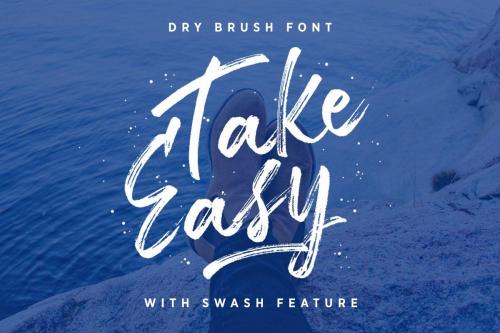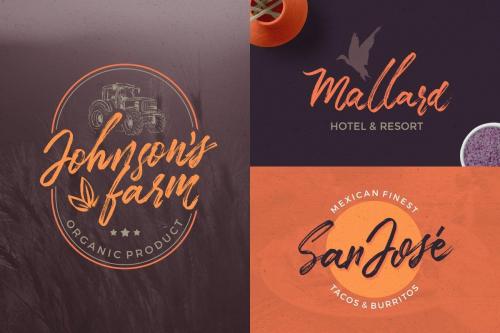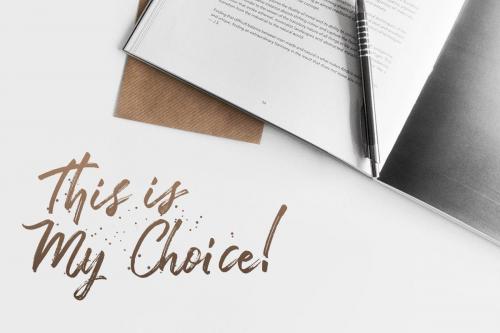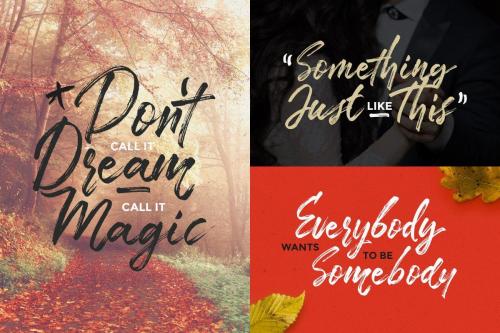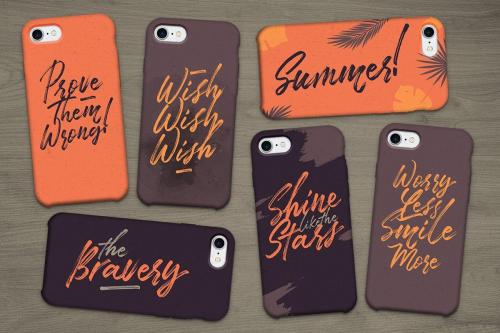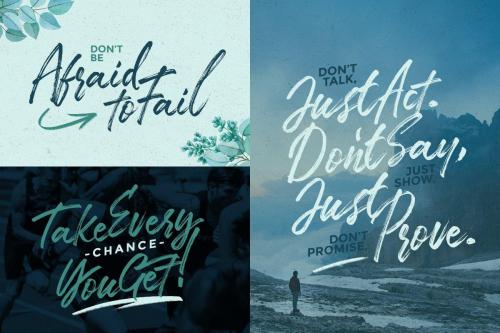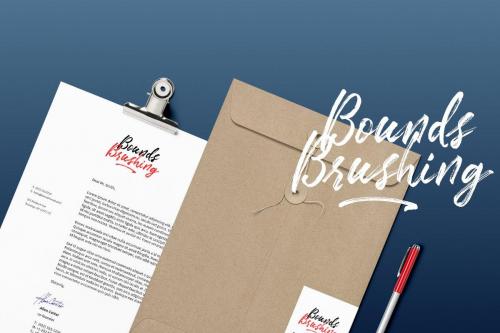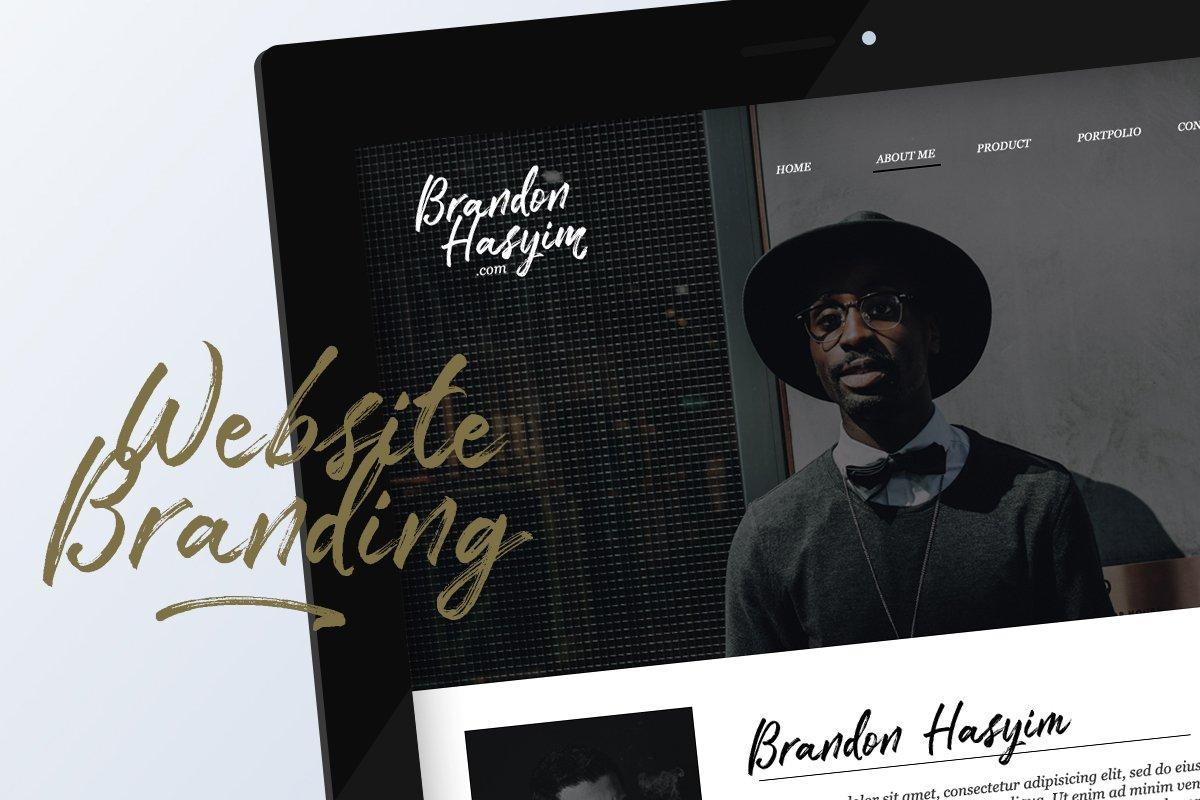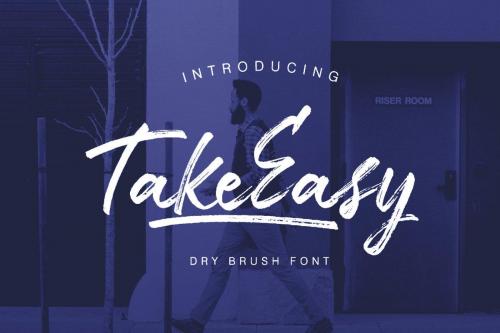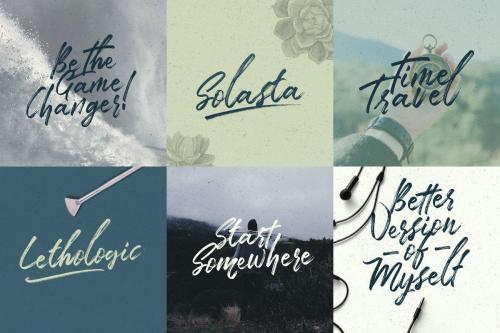
Introducing, TakeEasy Brush Font, made by manual hand brush which gives personal feel into your design needs.
This font has special opentype feature that allows to create the underline swash just by typing underscore twice or more in the middle of the text (see preview). You can try it by copy this text and write in the text form below : Take__Easy Take___Easy
It also comes in uppercase, lowercase, punctuations, symbols & numerals, stylistic set alternate, ligatures, etc. Suitable to use in various project such as logo, apparel, company branding, signature, anything you like.